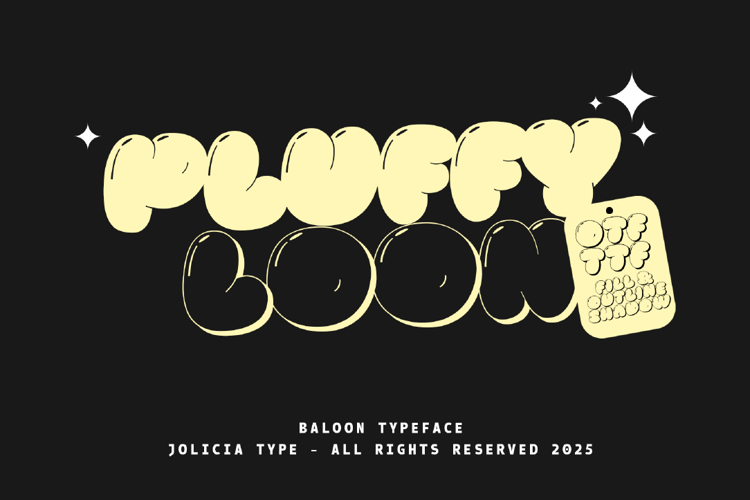
Pluffy Loon Outline Shadow Font
About Pluffy Loon Outline Shadow Font
Outline Shadow Style
More info from Jolicia Type Foundry
Pluffyloon is a bold, playful balloon-style font full of life! Featuring
glossy 3D highlights, it’s perfect for kids’ invitations, birthday posters,
toy branding, playful packaging, and creative projects that need a
joyful, lively, and fun touch.